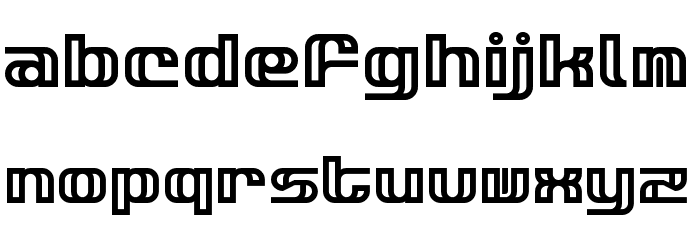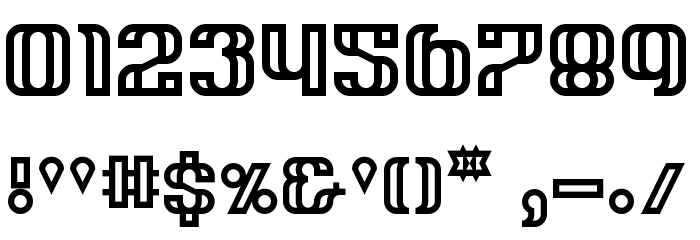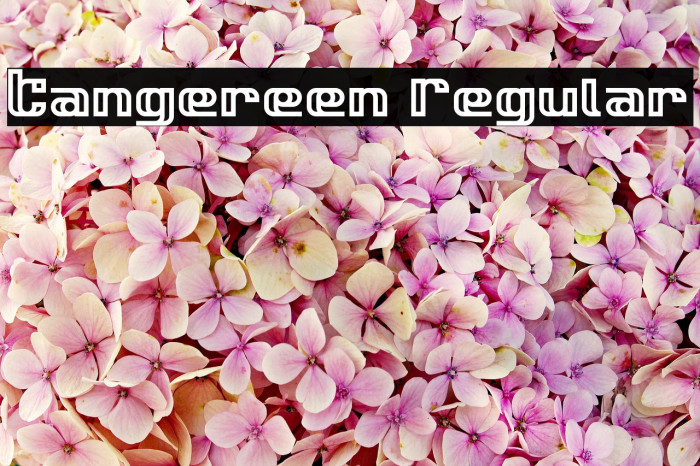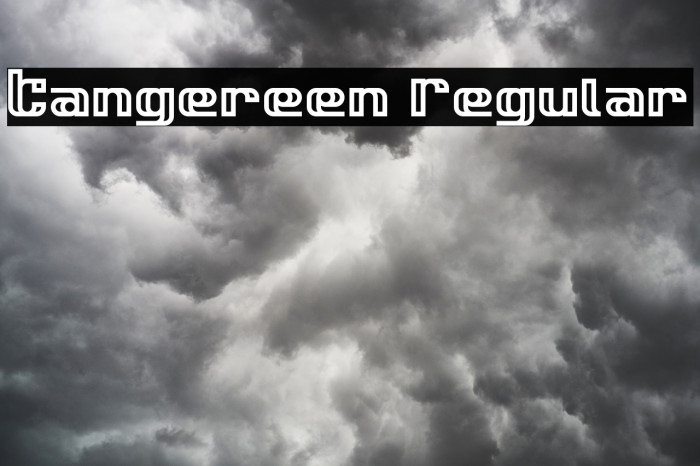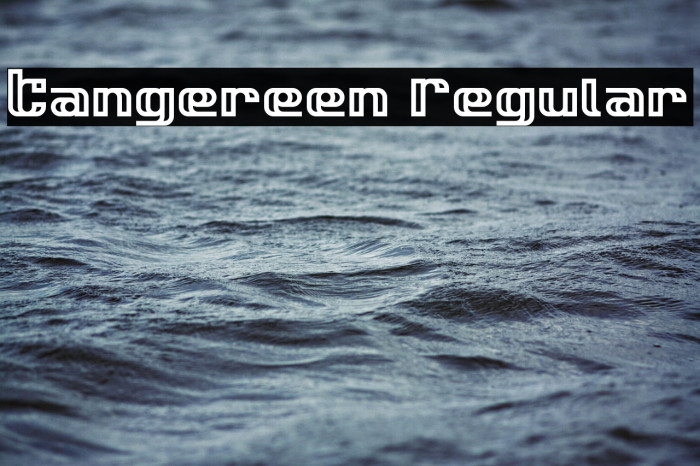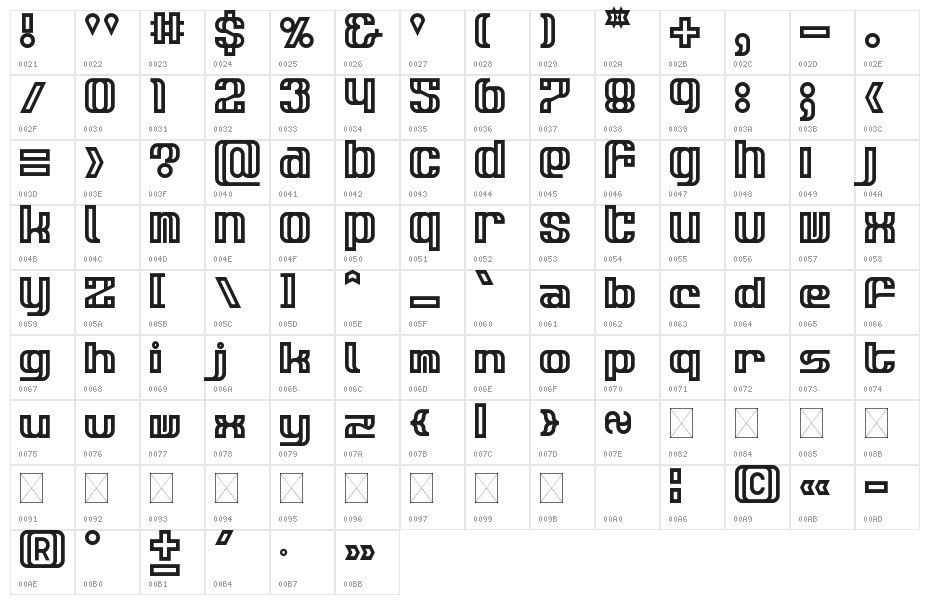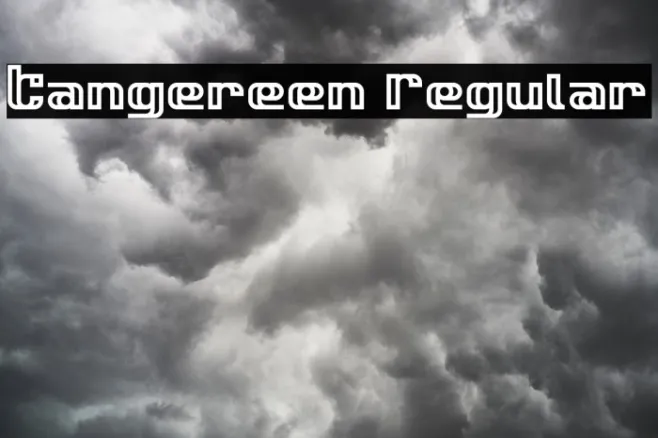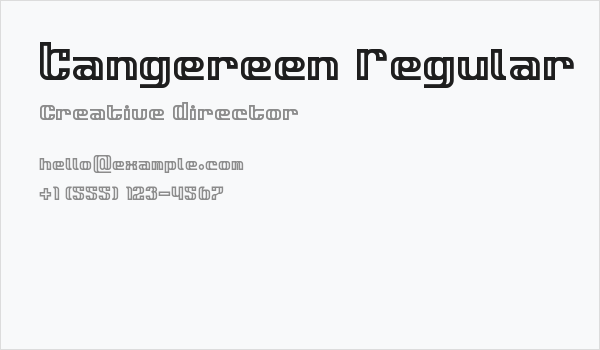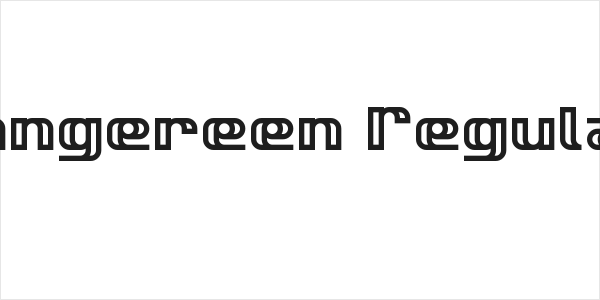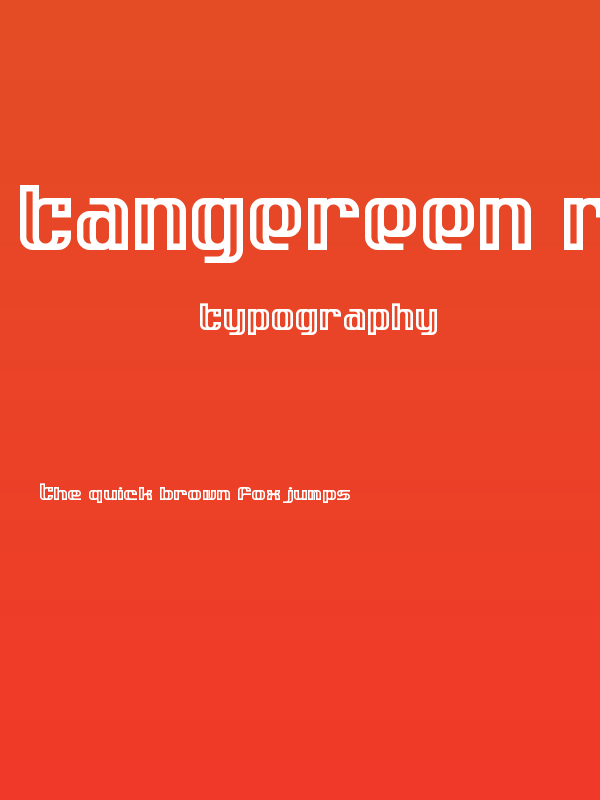
Tangereen Regular Font
This font features a bold and geometric design with a distinct modern flair. The characters are constructed with thick, uniform strokes and sharp angles, creating a strong visual impact. The uppercase and lowercase letters maintain a consistent style, with rounded edges that soften the overall look. The numerals and special characters are equally bold, ensuring readability and a cohesive appearance across all text elements. This font's unique style makes it suitable for eye-catching designs and contemporary projects.
A bold, geometric font with a modern and impactful design.
- Proposed Projects: Ideal for branding, posters, headlines, and any project requiring a strong visual presence.